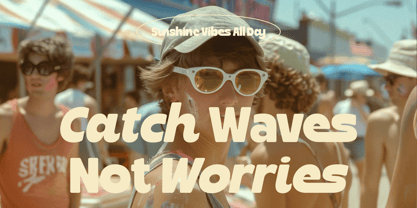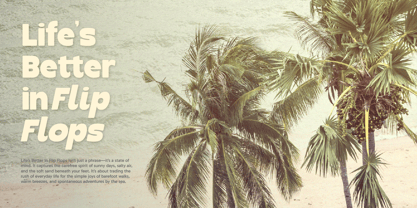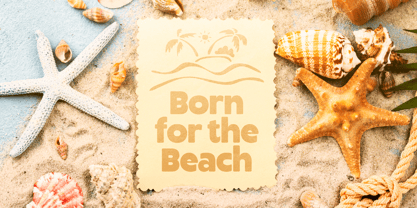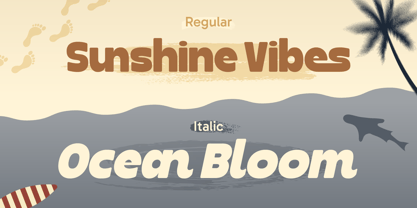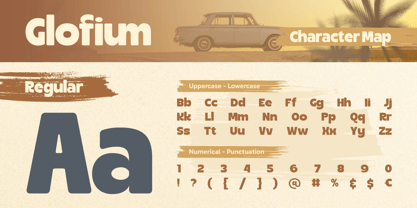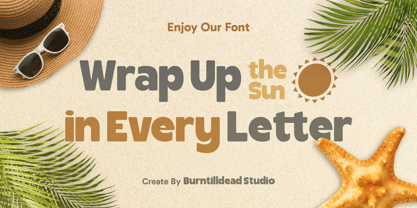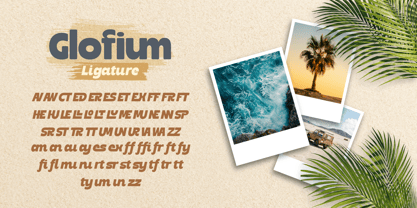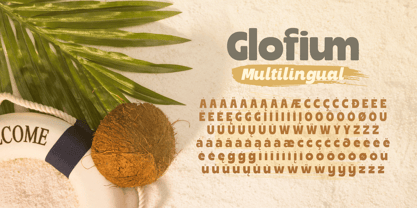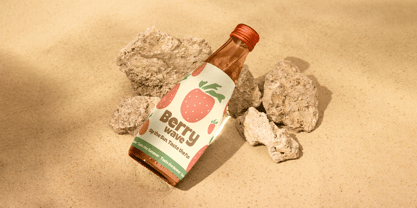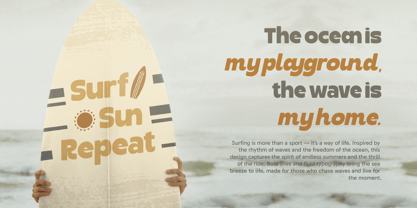
Glofium
by Burntilldead
The Glofium Font Family was designed by Eric Kurniawan and published by Burntilldead. Glofium contains 2 styles and family package options. More about this family
Say hello to Glofium, a bold and chunky typeface that’s super fun to use and easy to read. It comes with 2 styles: Regular dan Italic, so you can mix things up and keep your design looking fresh. This font have characterize of warm, friendly and impossible to ignore. If you’re working on a poster, branding project, social media post, poster, big headlines, product packaging or just want your words to stand out, Glofium got your back! The shapes are thick, rounded and friendly - making your text look bold but still super easy to read.
Features:
• Uppercase & Lowercase
• Number
• Punctuation
• Alternate
• Ligatures
• Multilingual
Designers: Eric Kurniawan
Foundry: Burntilldead